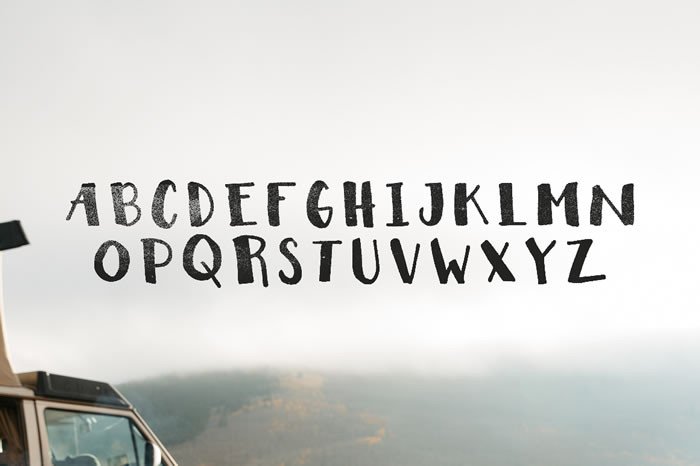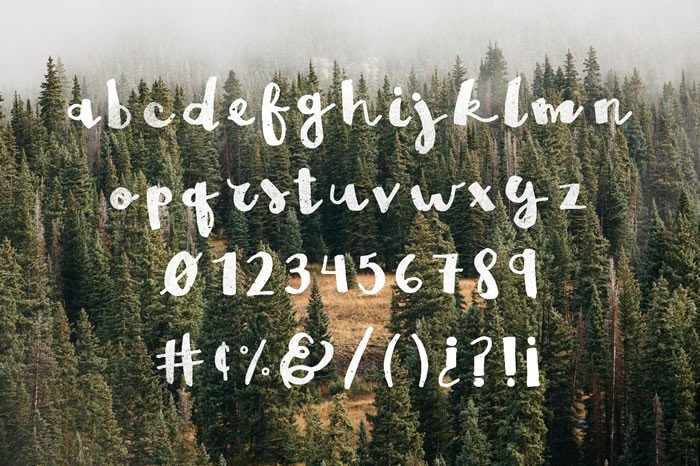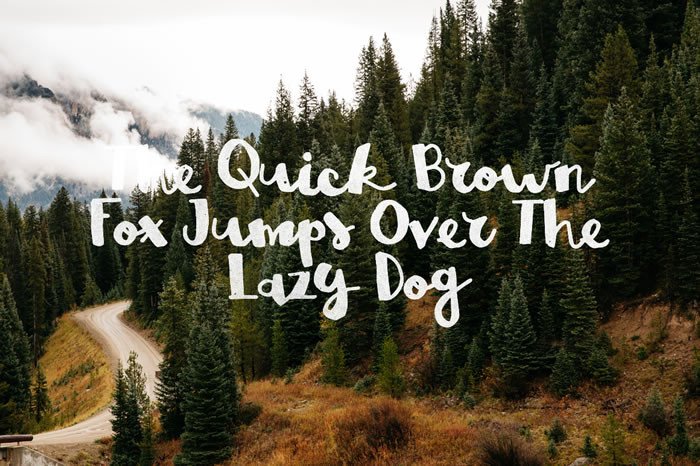
Brown Fox Font
Brown fox is an amazing new typeface for those who love script and regular designs. Perfect to use for invitations, posters, headers, flags, logos and much more